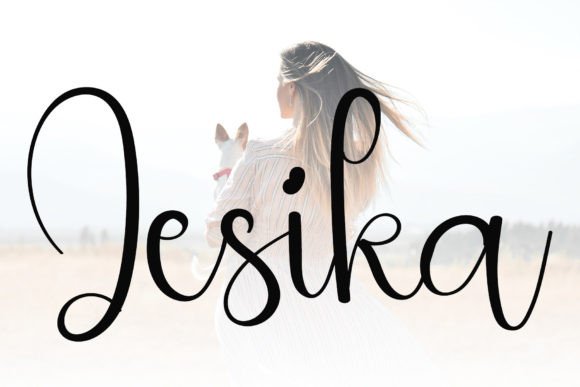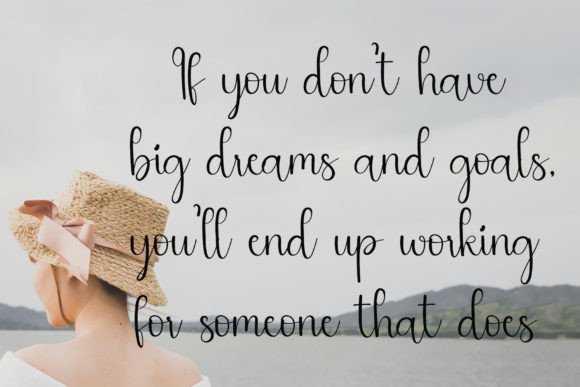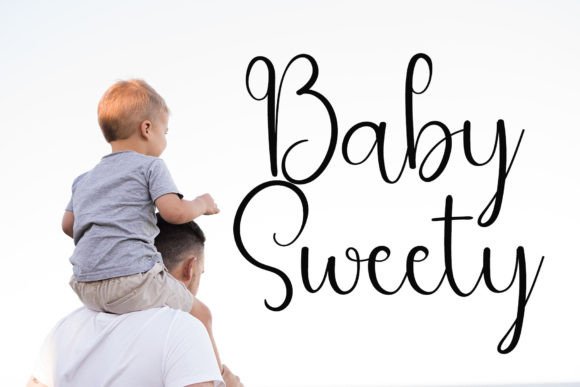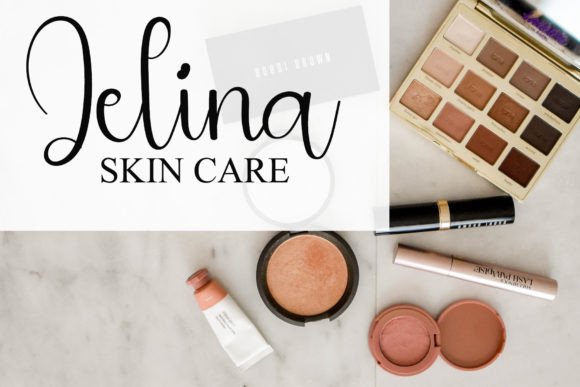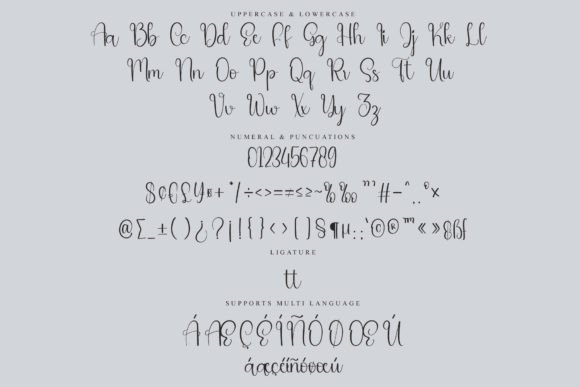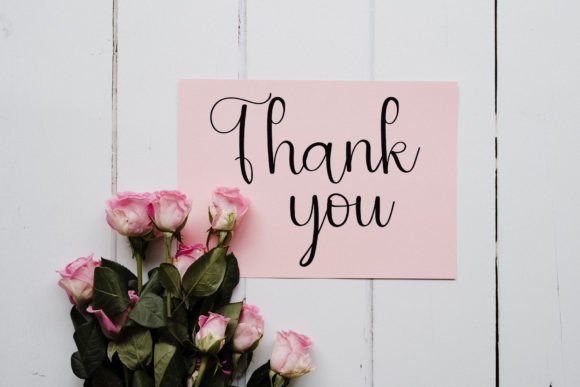
Introducing Extrail Font: The Sweet and Elegant Cursive Handwritten Font
Are you looking for a font that can add a touch of elegance and romance to your designs? Look no further than Extrail Font, a beautiful and sweet cursive handwritten font that is perfect for a variety of design projects. In this article, we’ll take a closer look at Extrail Font, its features, and how you can use it to elevate your designs.
What is Extrail Font?
Extrail Font is a gentle and cursive handwritten font that is designed to add a joyful and romantic touch to your projects. Its sweet and elegant lettering makes it perfect for a wide range of design ideas, from branding and logos to wedding things, greeting cards, and fashion designs.
Key Features of Extrail Font
So, what makes Extrail Font so special? Here are some of its key features:
• Sweet and Cursive Handwritten Style: Extrail Font has a beautiful, cursive handwritten style that is both elegant and casual.
• Versatile: This font is perfect for a variety of design projects, including branding, logos, wedding things, greeting cards, fashion, lookbooks, and marketing promotions.
• Elegant yet Casual: Extrail Font strikes the perfect balance between elegance and casualness, making it suitable for designs that require a touch of sophistication without being too formal.
• Easy to Read: The font is clear and easy to read, making it perfect for body text and headings.
Use Cases for Extrail Font
So, how can you use Extrail Font in your designs? Here are some ideas to get you started:
• Branding and Logos: Use Extrail Font to create a beautiful and memorable logo for your brand.
• Wedding Designs: Extrail Font is perfect for wedding invitations, wedding cards, and other wedding-related designs.
• Greeting Cards: Use this font to create beautiful and heartfelt greeting cards for special occasions.
• Fashion and Lookbooks: Extrail Font is perfect for fashion designs, lookbooks, and marketing promotions that require a touch of elegance and sophistication.
Tips for Using Extrail Font
Here are some tips for using Extrail Font in your designs:
• Pair it with Other Fonts: Extrail Font looks great when paired with other fonts, such as sans-serif fonts or serif fonts.
• Use it for Headings and Titles: Extrail Font is perfect for headings and titles, but you can also use it for body text.
• Experiment with Colors: Try out different colors and textures to see what works best with Extrail Font.
In conclusion, Extrail Font is a beautiful and sweet cursive handwritten font that is perfect for a variety of design projects. Its elegant yet casual style makes it suitable for designs that require a touch of sophistication without being too formal. With its versatility, ease of use, and beautiful lettering, Extrail Font is a great addition to any designer’s toolkit.